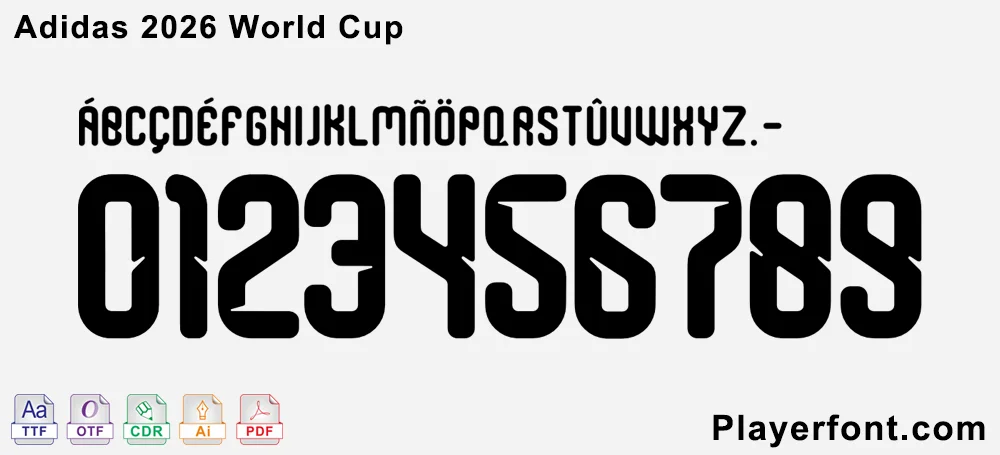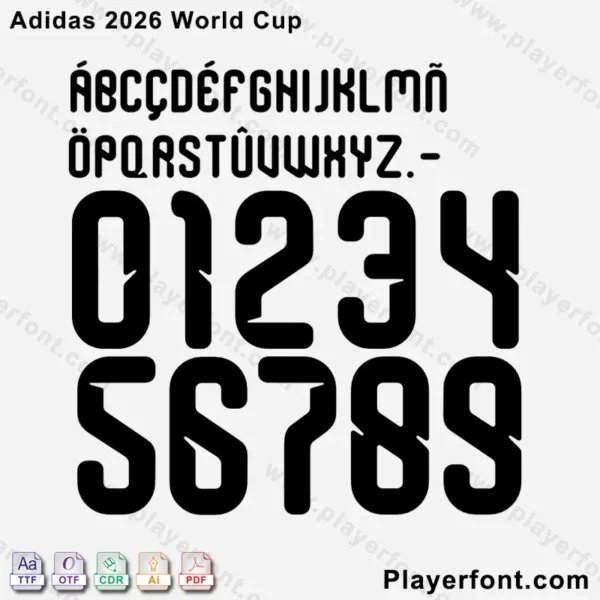
Capture the official look of the biggest football tournament with our complete digital file package for the Adidas 2026 World Cup Font. This typeface is designed for use on the official match and replica kits of all Adidas-sponsored national teams, including the unique number style and player lettering.
The font features a modern, bold aesthetic with distinctive angular cuts and a streamlined look, as seen on the back of player shirts for the 2026 tournament.What’s Included in Your Download:
- Complete Character Set: Includes all uppercase letters (A-Z), numbers (0-9), and essential punctuation, including special characters for various languages (e.g., Á, Ñ, Ö, Ü).